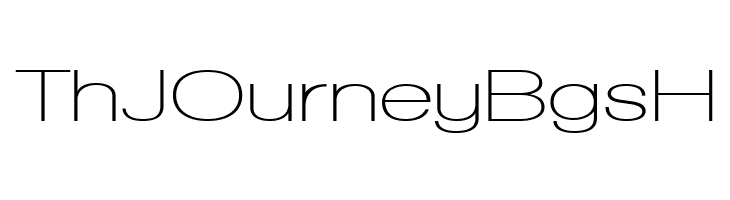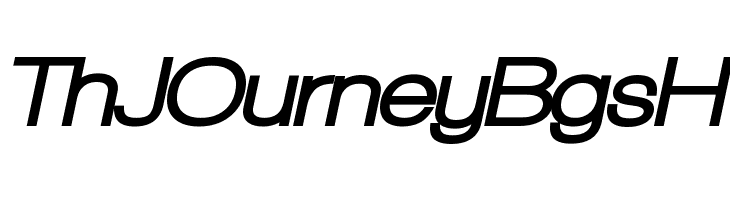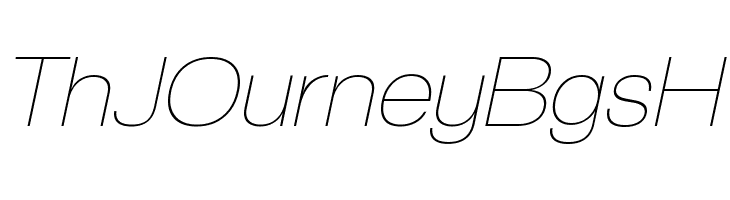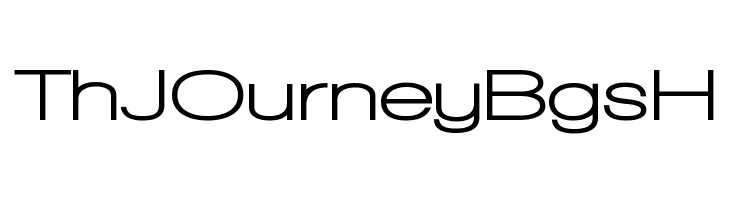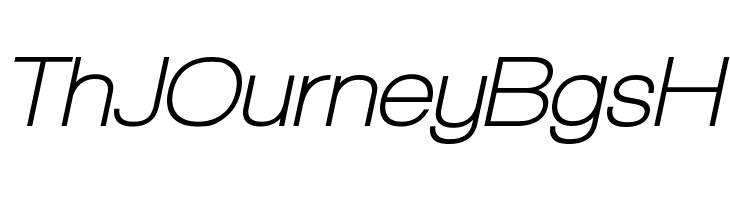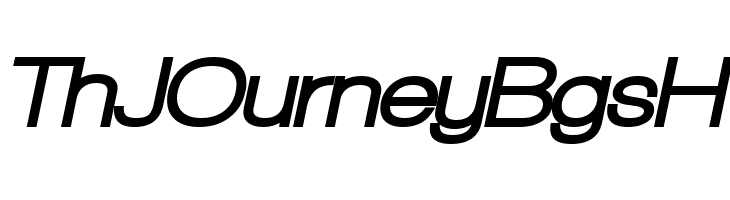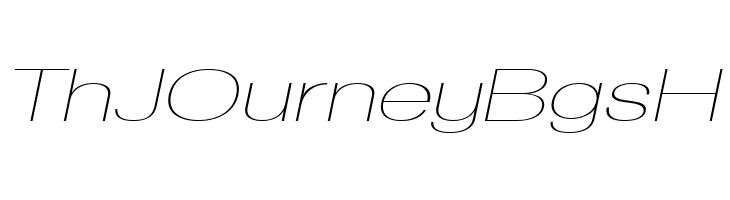
A modern, expanded font with geometric shapes and uniform stroke weight.
A modern, geometric font with ultra-bold weight and wide spacing.
A geometric sans-serif font with ultra-bold weight and expanded width.
A sleek, modern oblique font with thin, elongated letterforms.
A sleek, modern oblique font with thin, elongated characters.
A modern, oblique font with consistent stroke thickness and a sleek, dynamic appearance.
A bold, oblique font with a modern and dynamic style.
A bold, oblique sans-serif font with a modern and dynamic style.
A sleek, modern oblique font with bold weight and consistent stroke width.
A sleek, oblique sans-serif font with a modern and minimalist style.